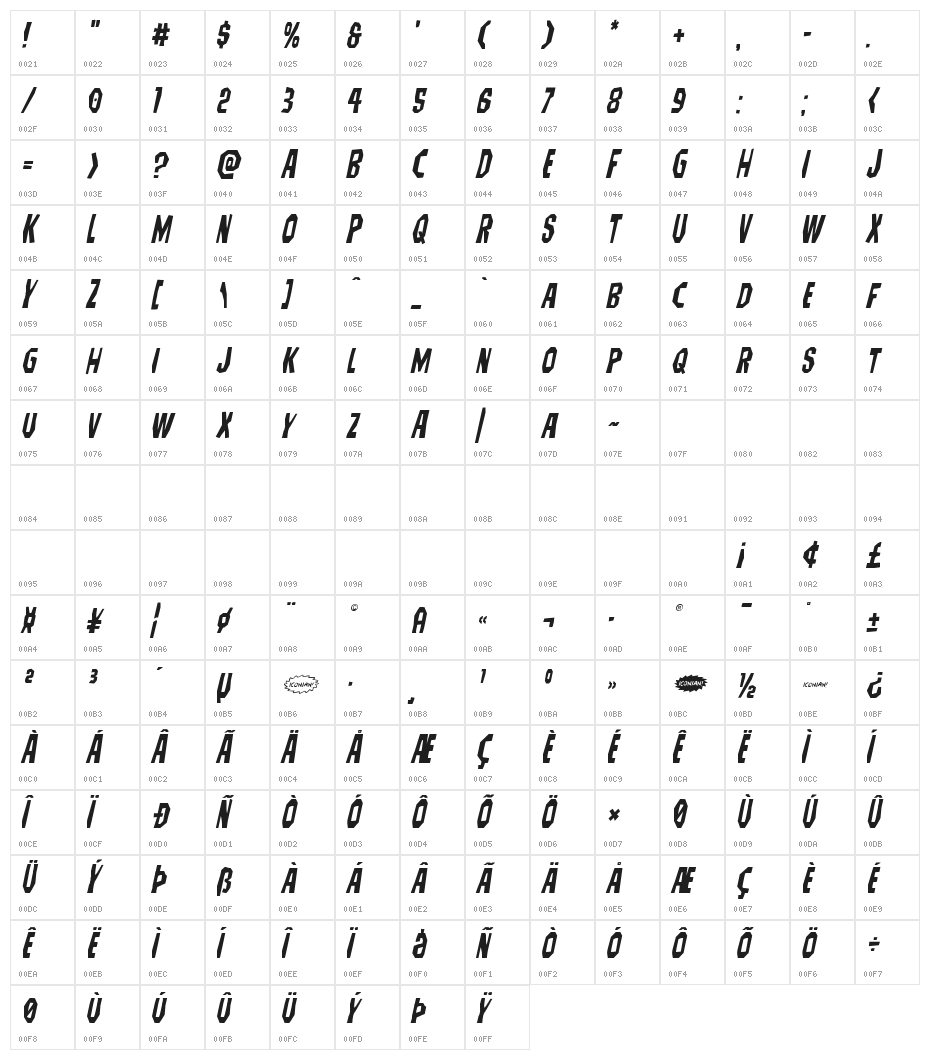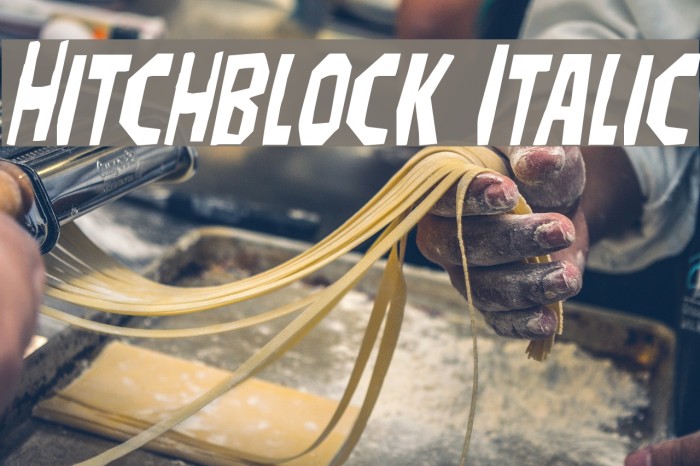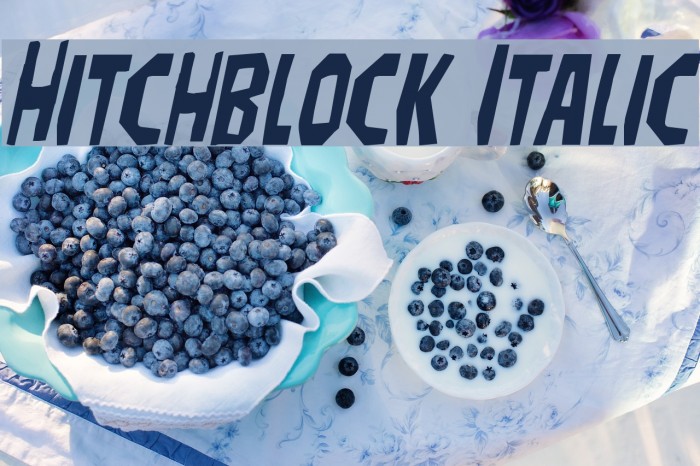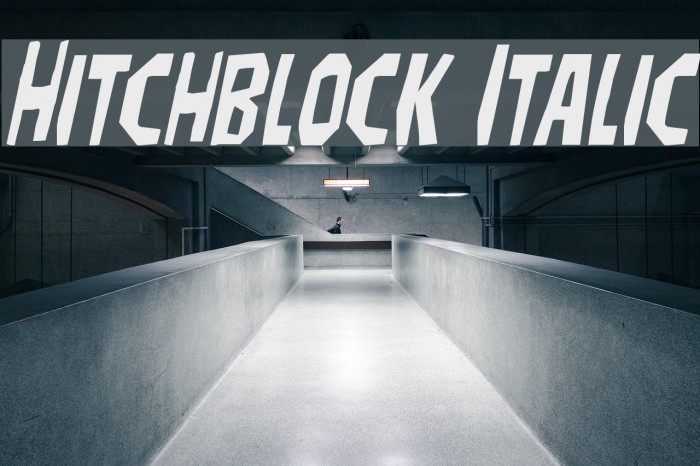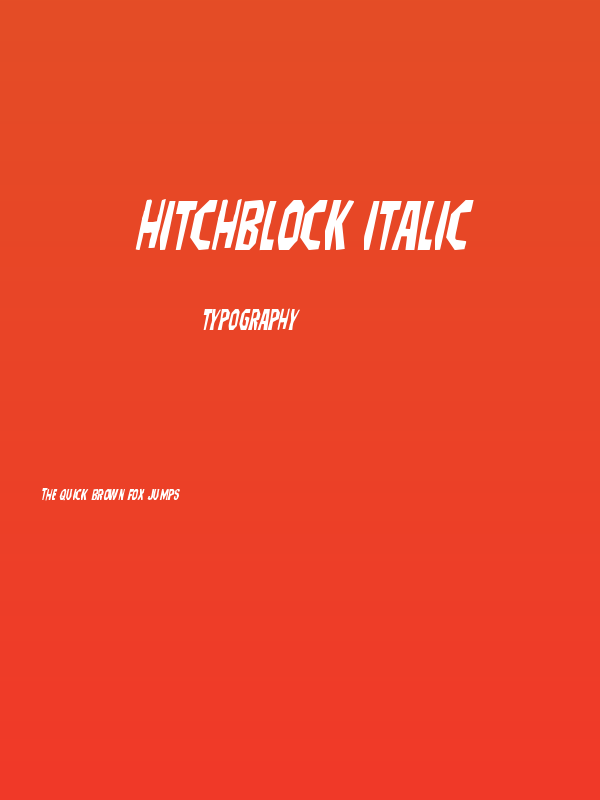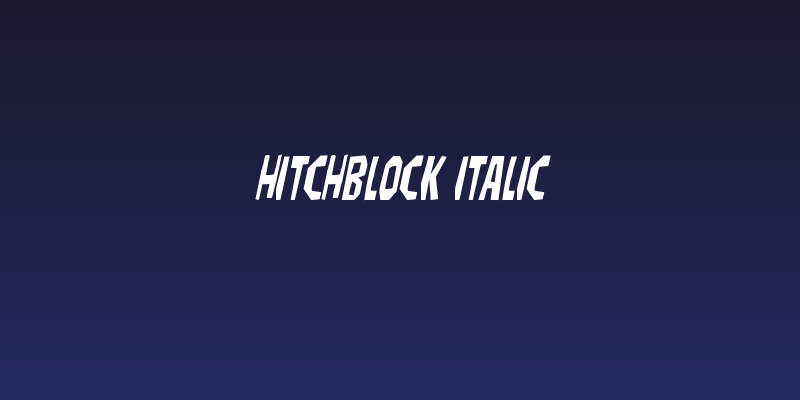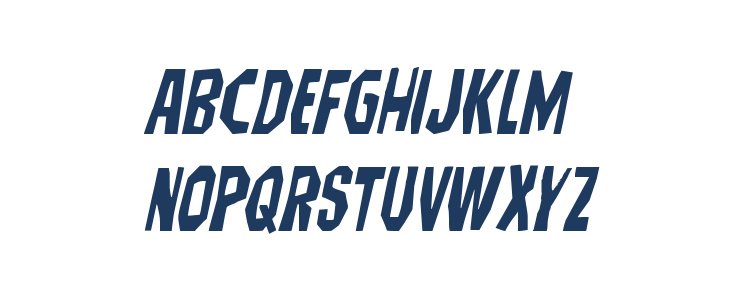
Hitchblock Italic Font
Hitchblock Italic Description
This font features a bold and dynamic design with a strong italic slant, giving it a sense of movement and energy. The characters are angular and geometric, with sharp edges and a distinct block-like appearance. The uppercase letters are particularly striking, with a uniform height and consistent weight that enhances readability. The numerals and special characters maintain the same bold style, ensuring consistency across all text elements. This font's unique style makes it ideal for projects that require a modern and impactful look.
| Proposed Projects | Ideal for sports branding, dynamic posters, video game titles, and modern advertising campaigns. |